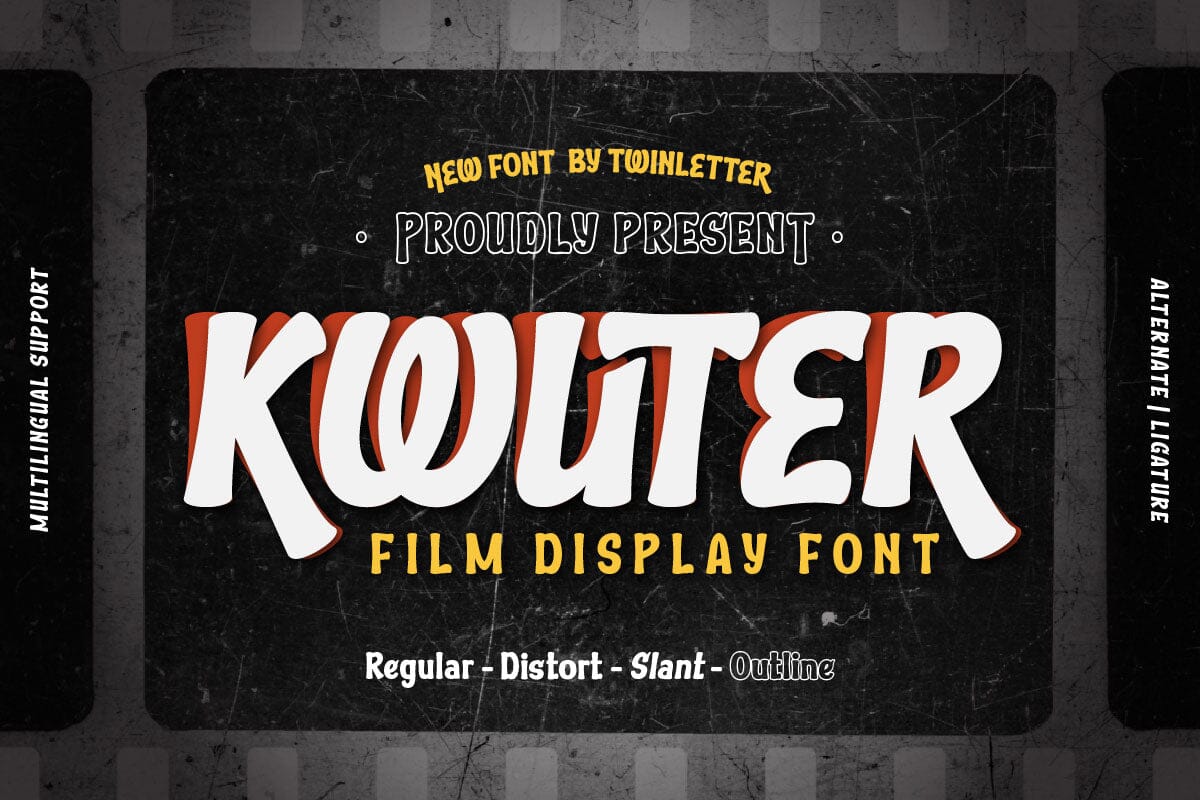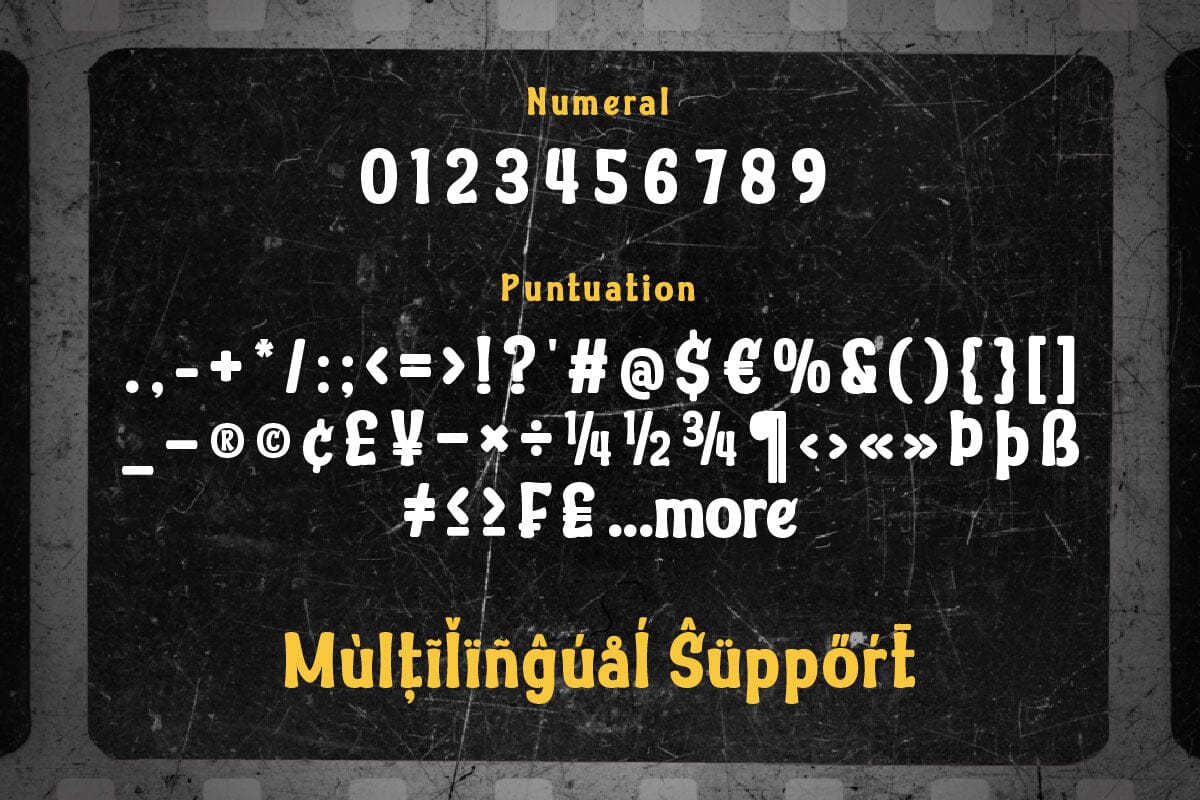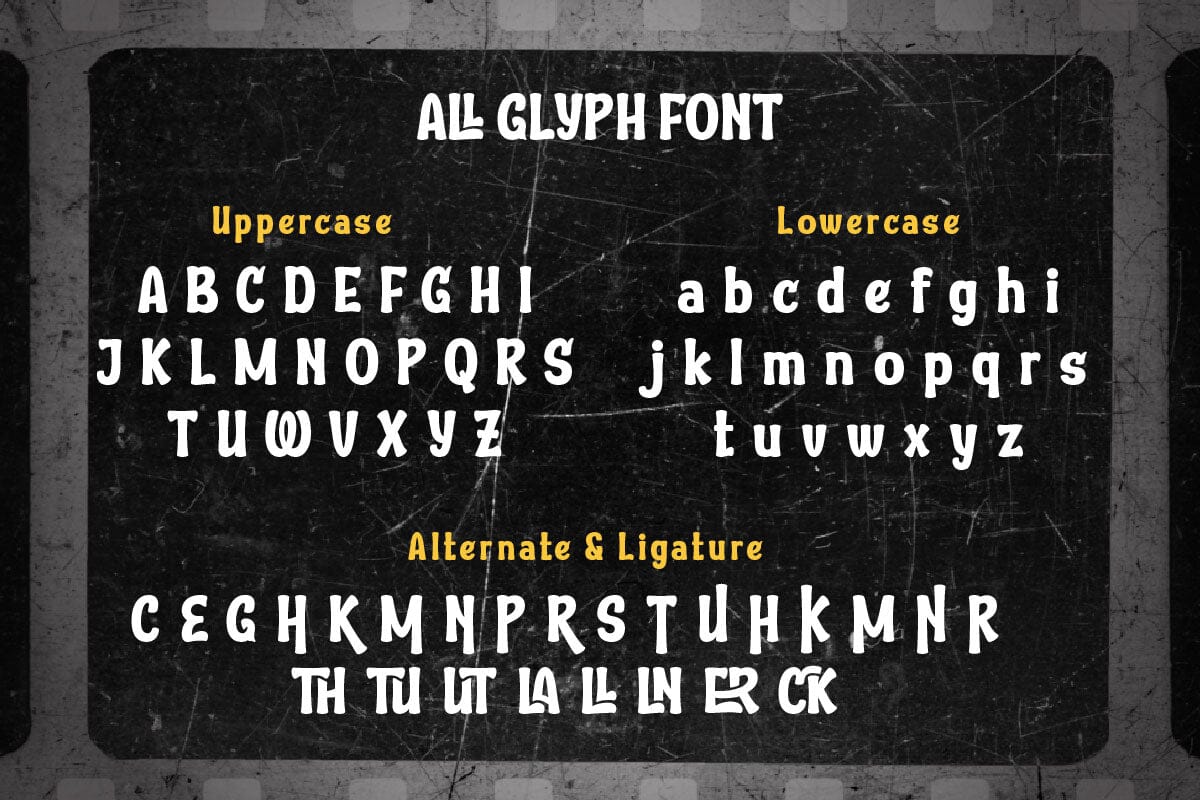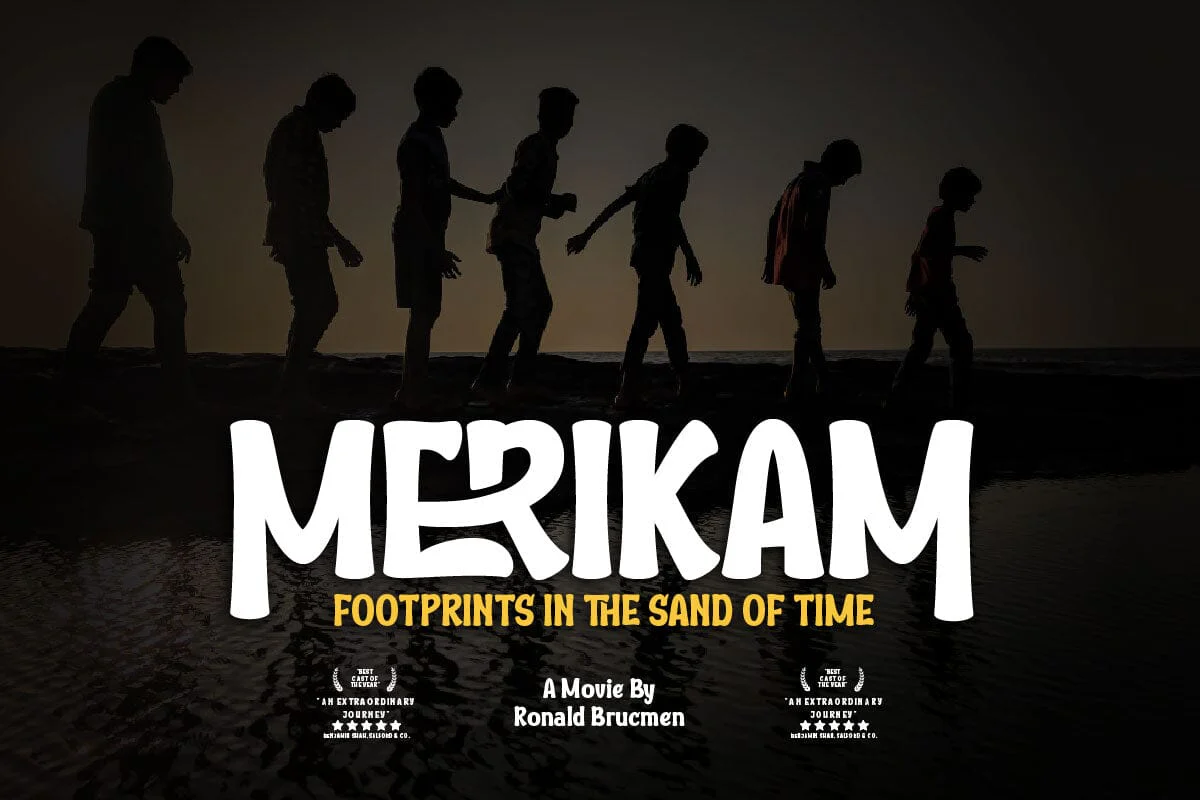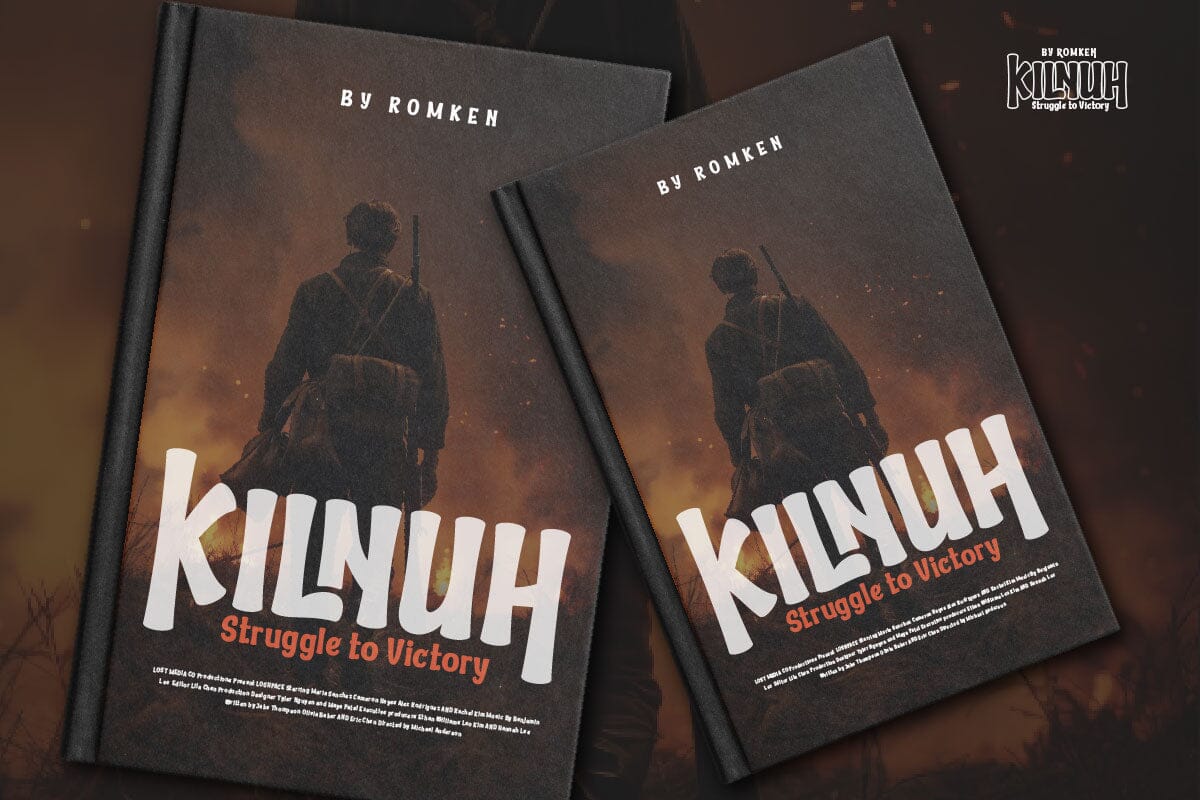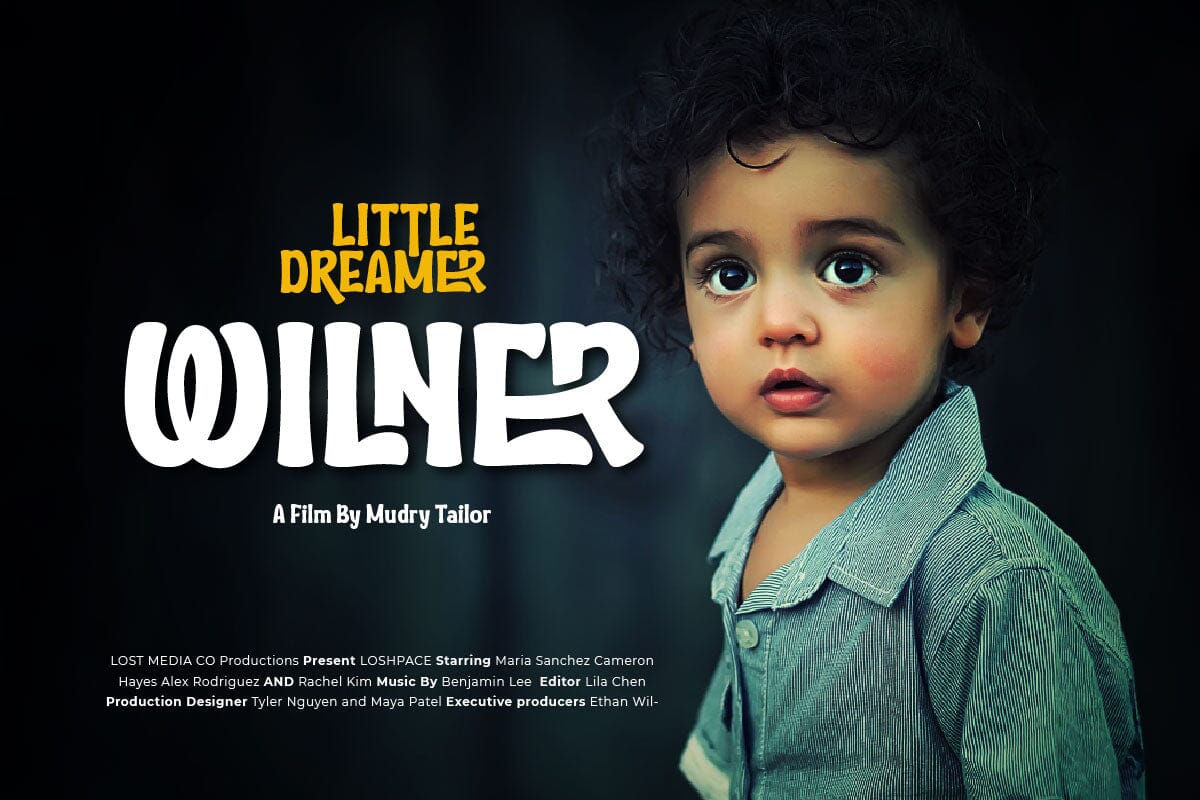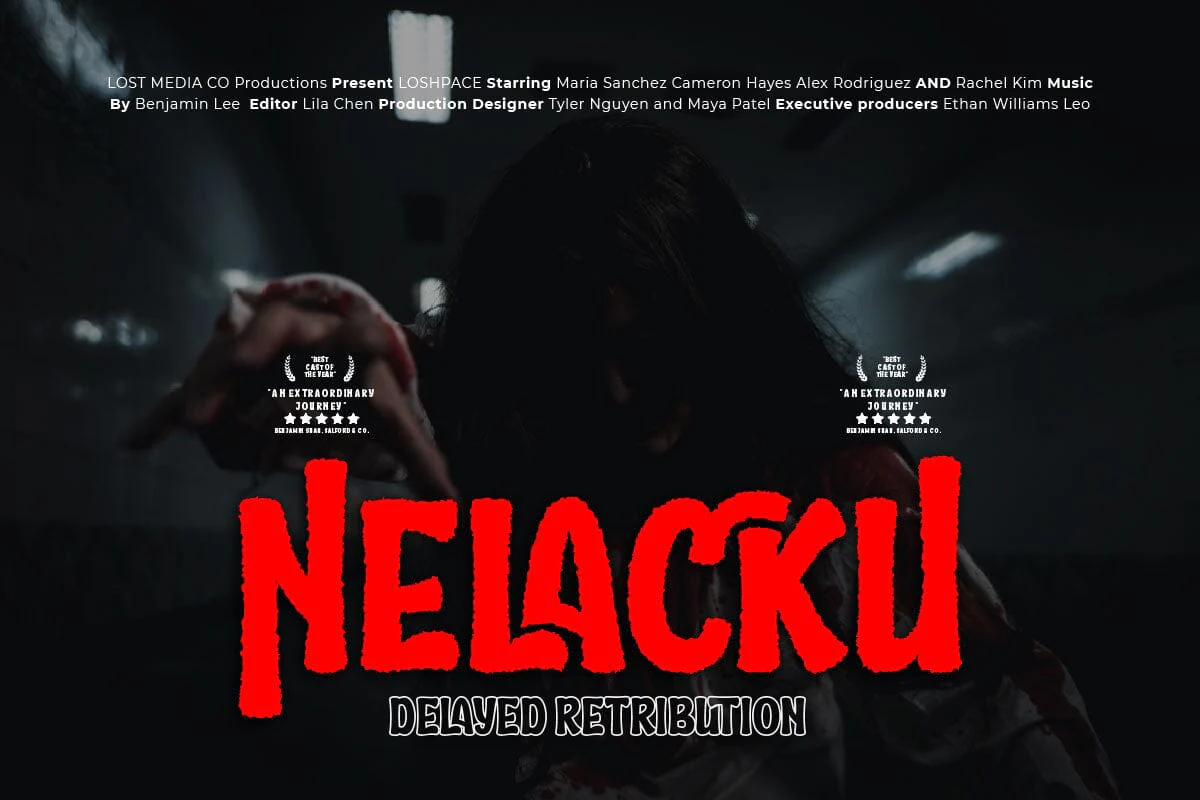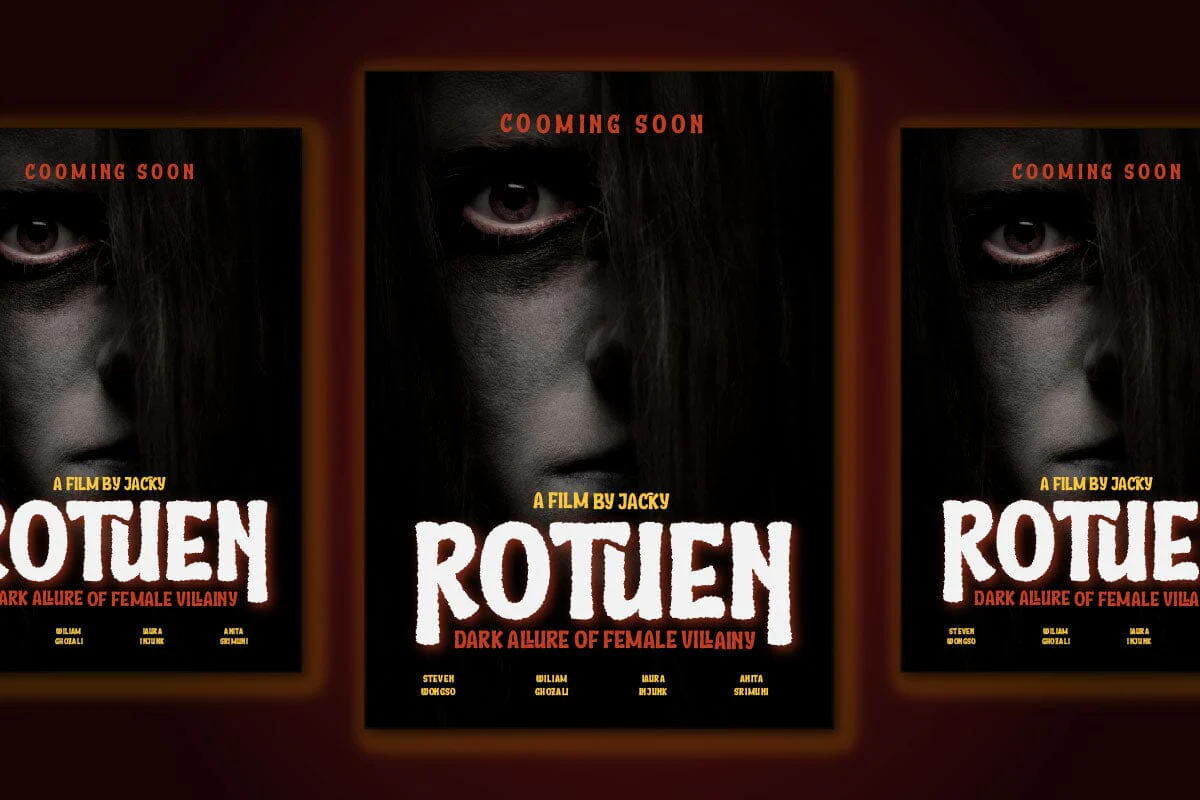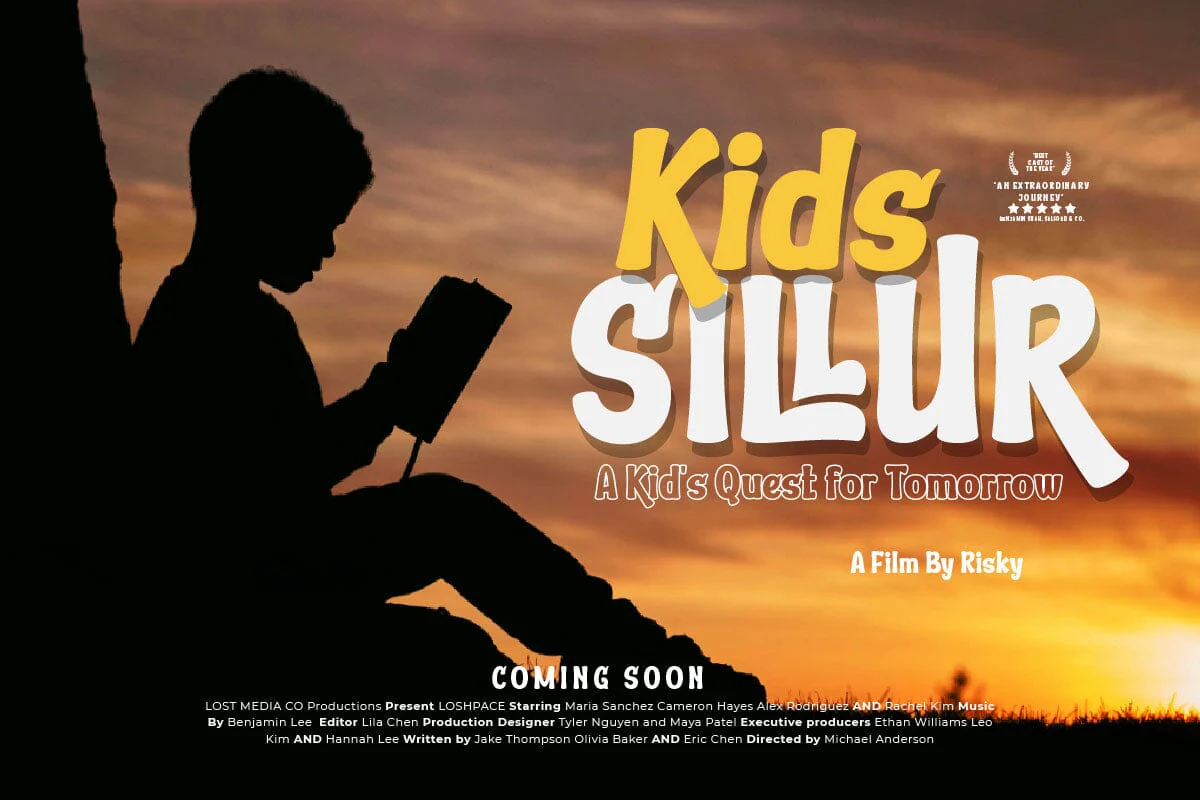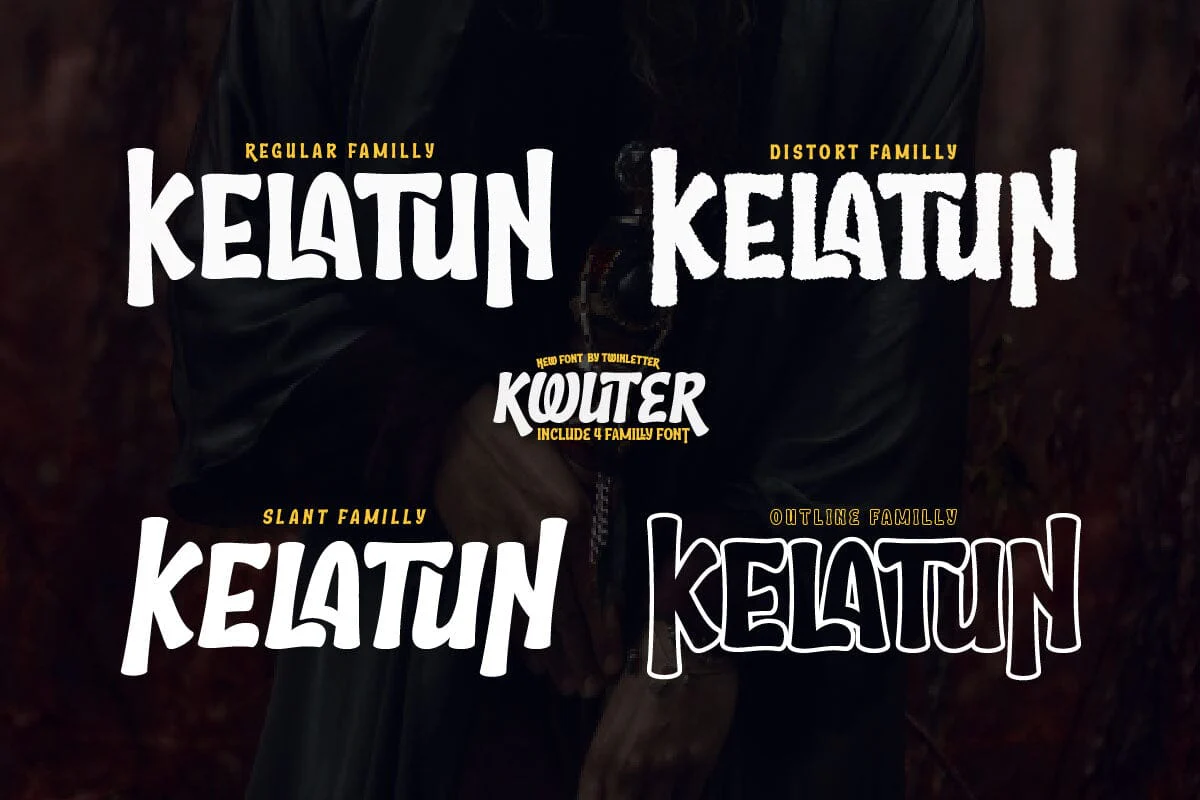
Kwuter - Film Display Font
Kwuter is a display typeface designed to create a dramatic and cinematic look in film-related design projects. This font combines modern elements with an artistic touch, creating a unique and stunning typographic character. Each letter in Kwuter has a strong and bold design, with details that emphasize the dramatic elements. This font is suitable for use in film titles, posters, or other promotional materials requiring a striking visual effect that can convey a cinematic feel. Kwuter provides an exclusive and professional look, making it the right choice for creating eye-catching design elements in cinema. This font can create a deep and striking impression, supporting film design projects with a unique cinematic character. What’s Included: - File font OTF, TTF, WOFF, WOFF2, CSS, HTML - All glyphs and variation - We highly recommend using a program that supports OpenType features and Glyphs panels like many Adobe apps and Corel Draw so that you can see and access all Glyph variations. - PUA Encoded Characters – Fully accessible without additional design software. - Fonts include Multilingual support